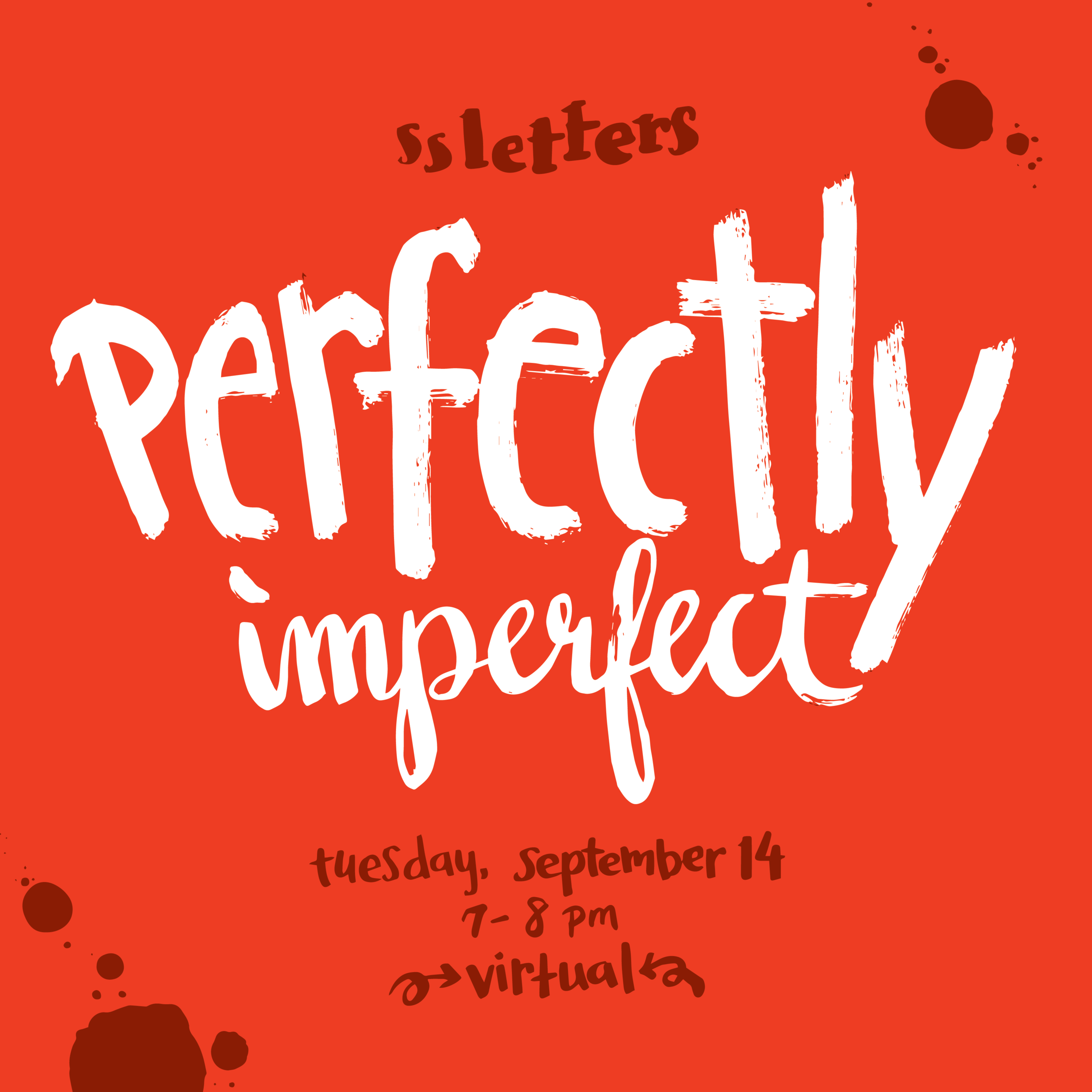
September Hand Lettering Doodle Session: Perfectly Imperfect
The theme for our September doodle session is Perfectly Imperfect! This theme is all about embracing those imperfections and quirkiness in hand lettering. & it's also about looking at how we can be more accepting and kind to ourselves with all our beautifully human imperfections.